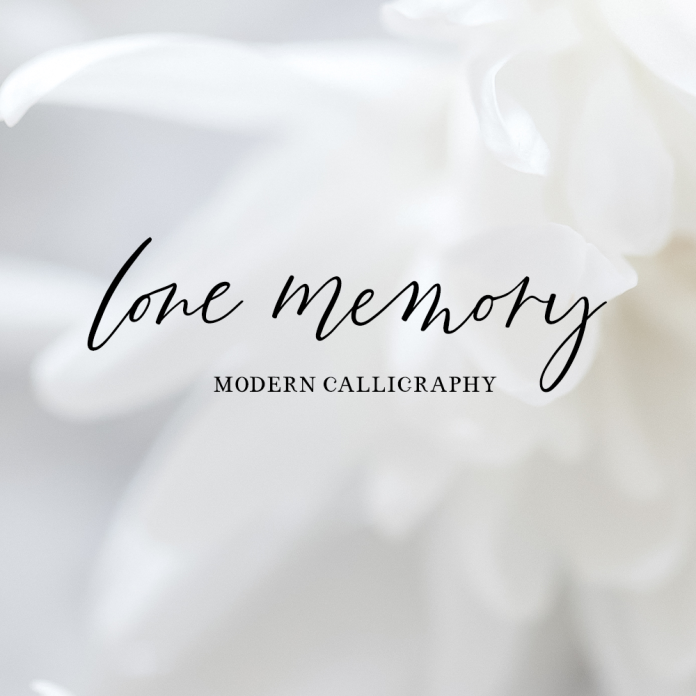
Lone Memory Modern Calligraphy Script Font
Introducing Lone Memory Script, a flowing modern calligraphy font. Lone Memory is full of alternates & ligatures to ensure your project looks totally handwritten and created with love & attention to detail. Lone Memory Script is best for: - feminine logos + branding - wedding invitations, save the dates, & other wedding/love themed items - website design + website accents - think travel blogs, fashion blogs, & more - clean print design, like magazines + flyers - header elements that need handwritten touch - quote graphics for social media Lone Memory includes: - full upper + lowercase characters - numbers + punctuation - Western European Language Support - 27 alternate characters - 37 ligatures - ab, al, all, an, ap, av, bb, ch, ck, dd, ee, el, em, en, ff, gg, gh, in, ll, mm, nn, of, ol, om, on, oo, or, os, ot, ou, rr, rr, sh, ss, st, th, tt - PUA-encoding